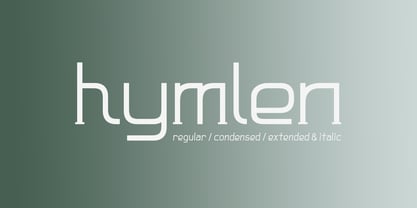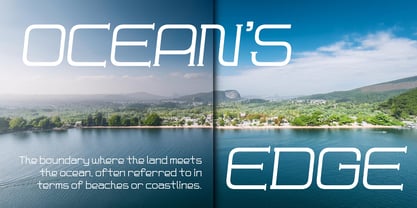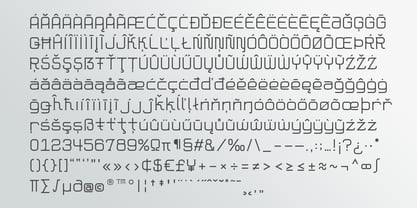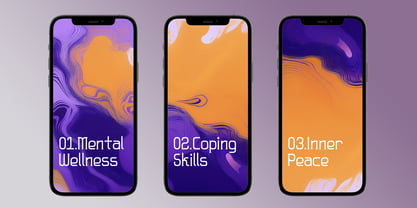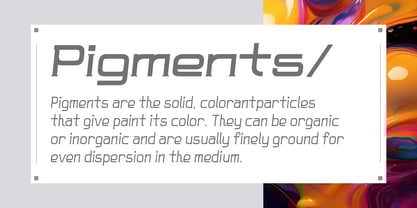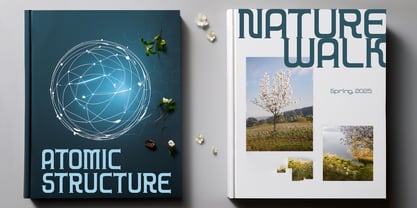
Hymlen
by Outerend
The Hymlen Font Family was designed by Taka Ikari and published by Outerend. Hymlen contains 18 styles and family package options.
Introducing Hymlen, a modern slab serif display font family that blends bold, striking shapes with unique, fluid curves. From sleek thin to powerful bold weights, including italics, Hymlen offers versatility for both digital and video projects. Its distinctive design is perfect for app interfaces, branding, and eye-catching headlines, adding a touch of elegance and modern flair to any creative solutions.